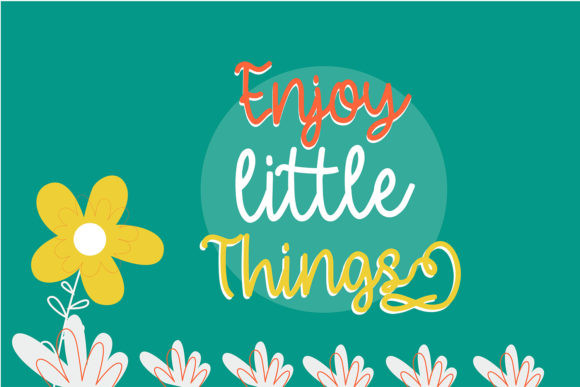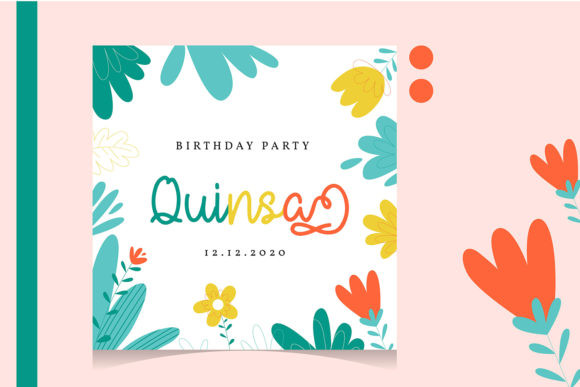
Enlloisye Font
Enlloisye is a stylish and delicate font. It has a clean, thin and smooth vibe and it will be a hit for any design that you want to add it to. This font is PUA encoded which means you can access all of the beautiful glyphs and swashes with ease!